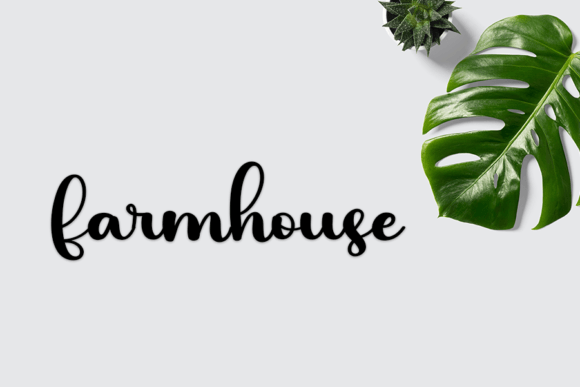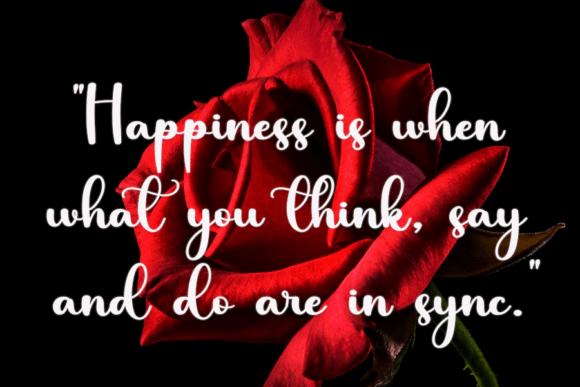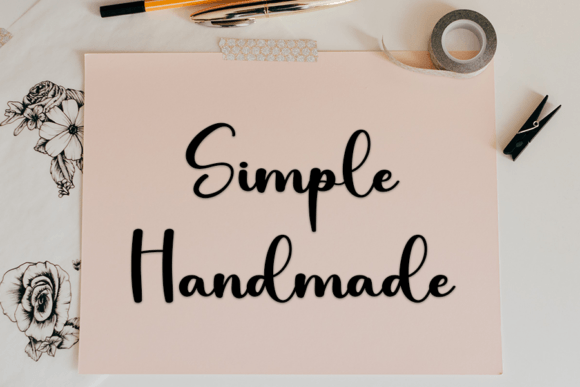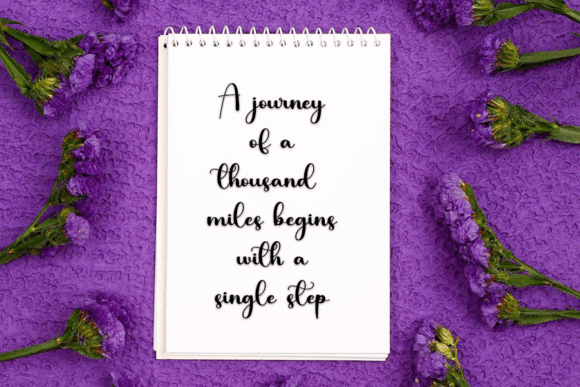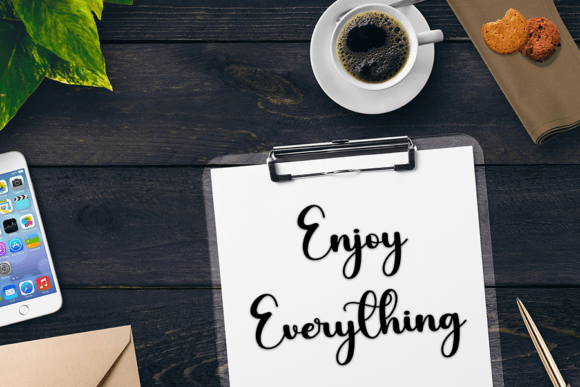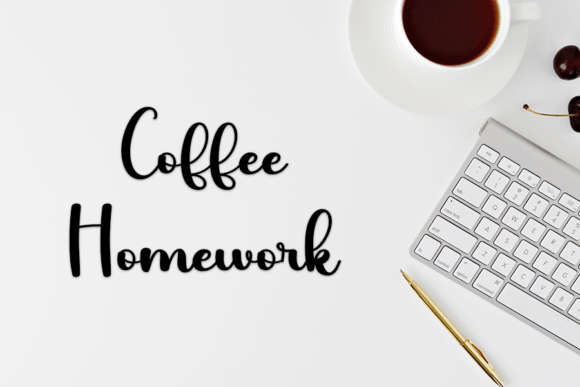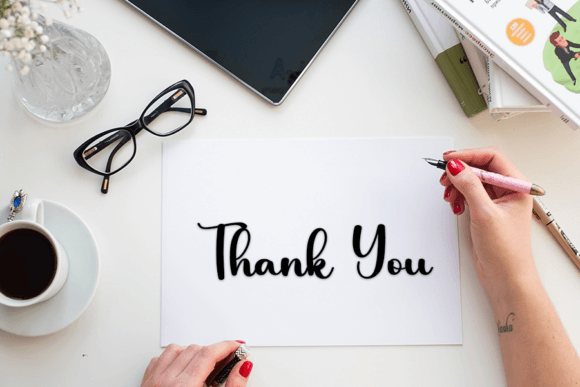
Agenda Font
**Agenda: A Delicate Handwritten Font for Cool and Unique Designs**
Agenda is a font that embodies delicacy and uniqueness, meticulously crafted for creating cool and distinct designs. Whether you’re writing letters, designing invitations, labeling food products, or working on titles, Agenda brings a touch of creativity and individuality to your projects.
The charm of Agenda lies in its delicate handwritten characters, each letter carefully designed to convey a sense of artistry and originality. This font allows you to infuse your designs with a cool and unique style that sets them apart.
Agenda’s versatility ensures it can adapt to various design contexts. You can use it to craft personal letters that reflect your artistic flair, create eye-catching and original invitations, add a unique touch to food product labels, or make titles that stand out with creativity.
In summary, Agenda is more than just a font; it’s a source of delicacy and uniqueness that enhances your design projects. Its carefully crafted characters make it the perfect choice for infusing cool and distinctive style into your work. With Agenda, your creative projects will shine with a touch of artistic flair. Choose Agenda, and let your designs captivate with their cool and unique presence.